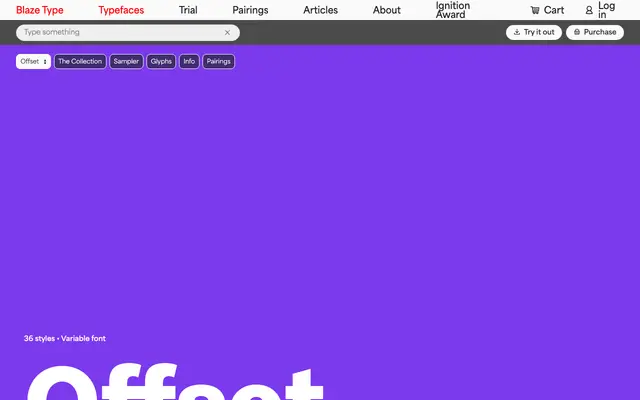
A grotesque sans in two subfamilies — Normal and Inktrap — spanning nine weights with italics and full variable font support.
The family runs across 36 styles divided between a standard Normal cut and an Inktrap variant, the latter incorporating ink-trap notches at stroke junctions for optical refinement at smaller sizes or in print contexts. Both subfamilies share the same nine-weight range from Thin to Heavy, each with matching italics. Available as variable fonts, the range suits editorial, branding and screen work where weight range and typographic detail matter.
Offset is a contemporary grotesque sans-serif with an inktrap subfamily, indicating construction rooted in optical compensation traditions typical of refined grotesque type design.